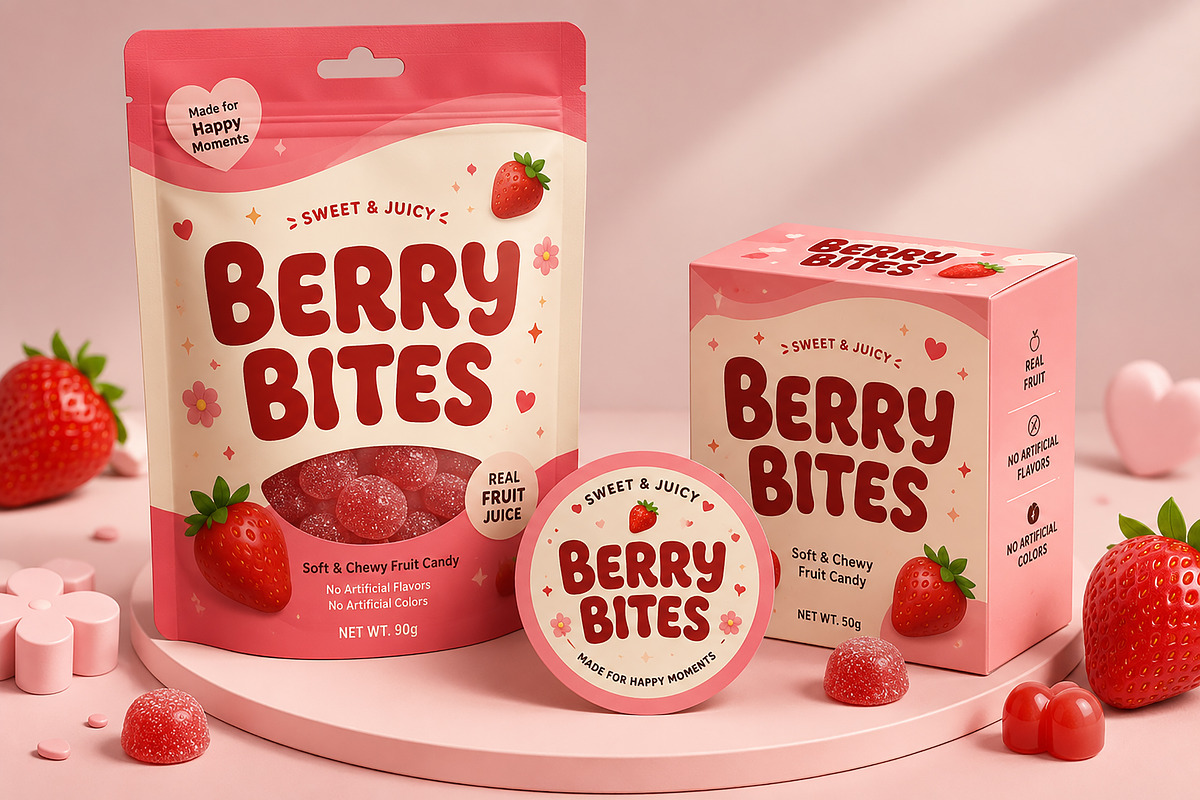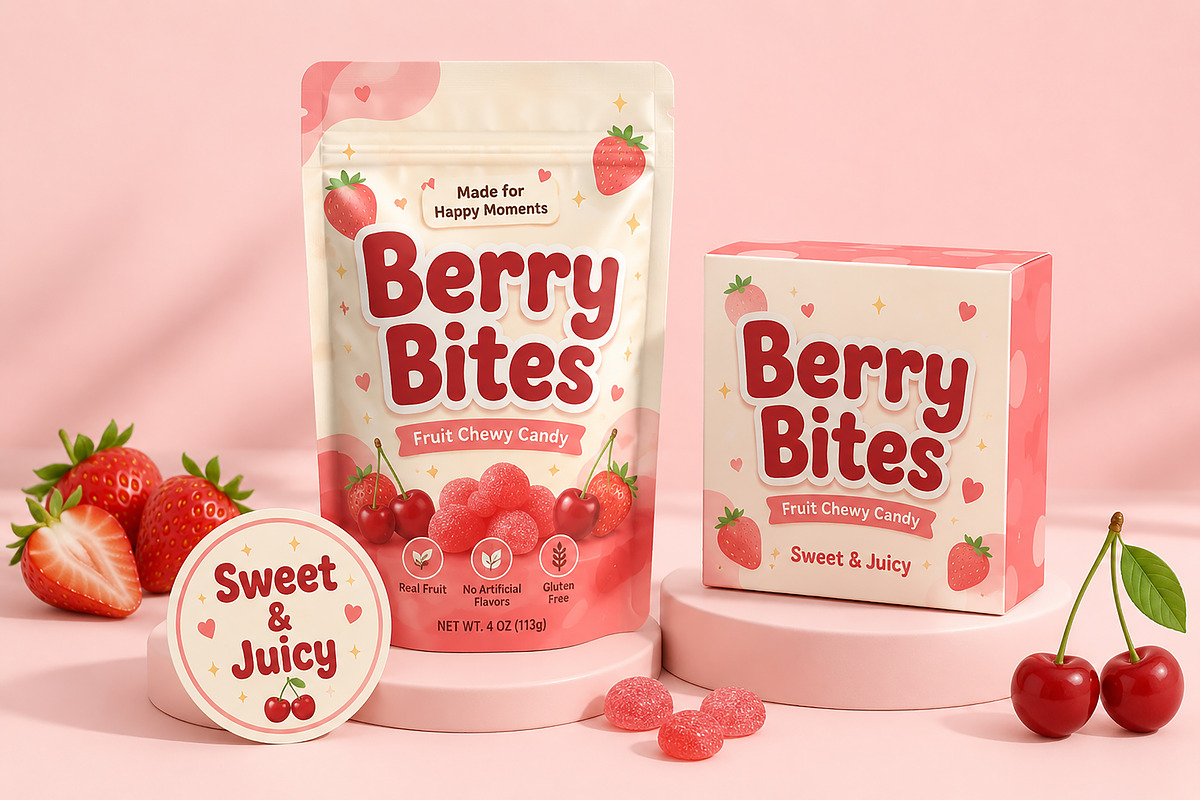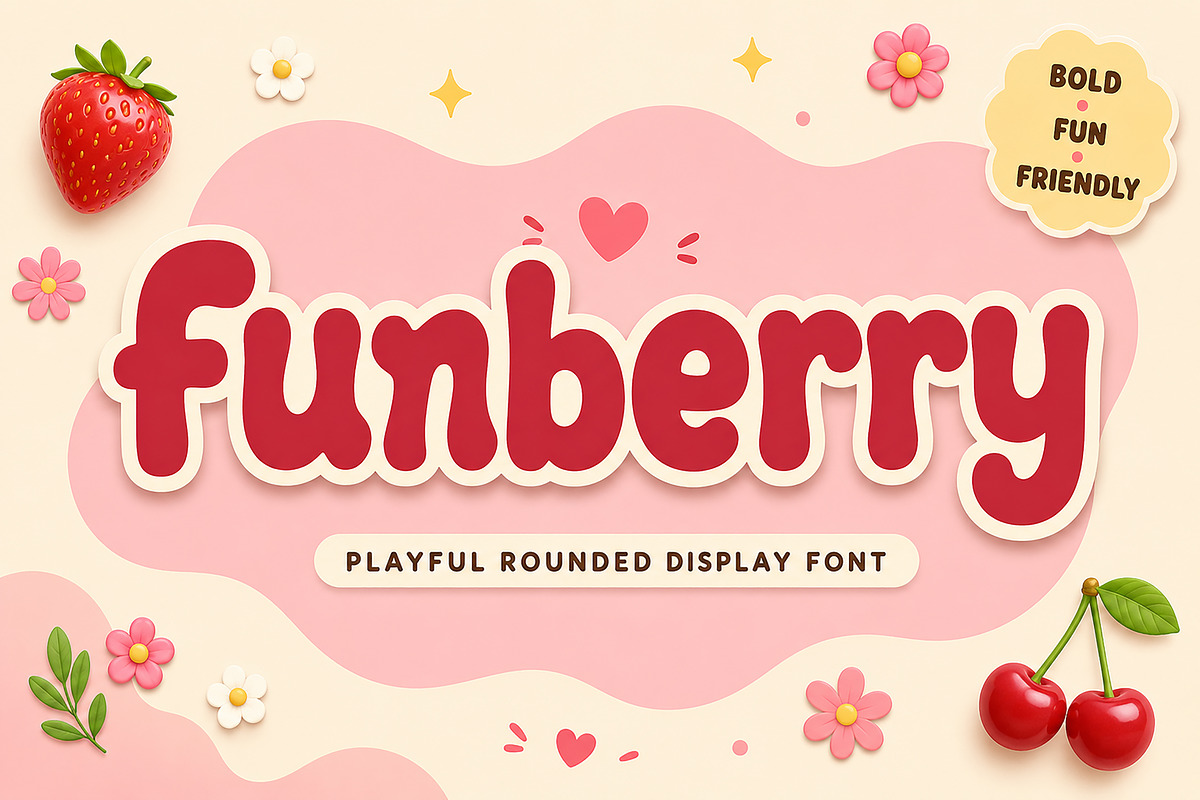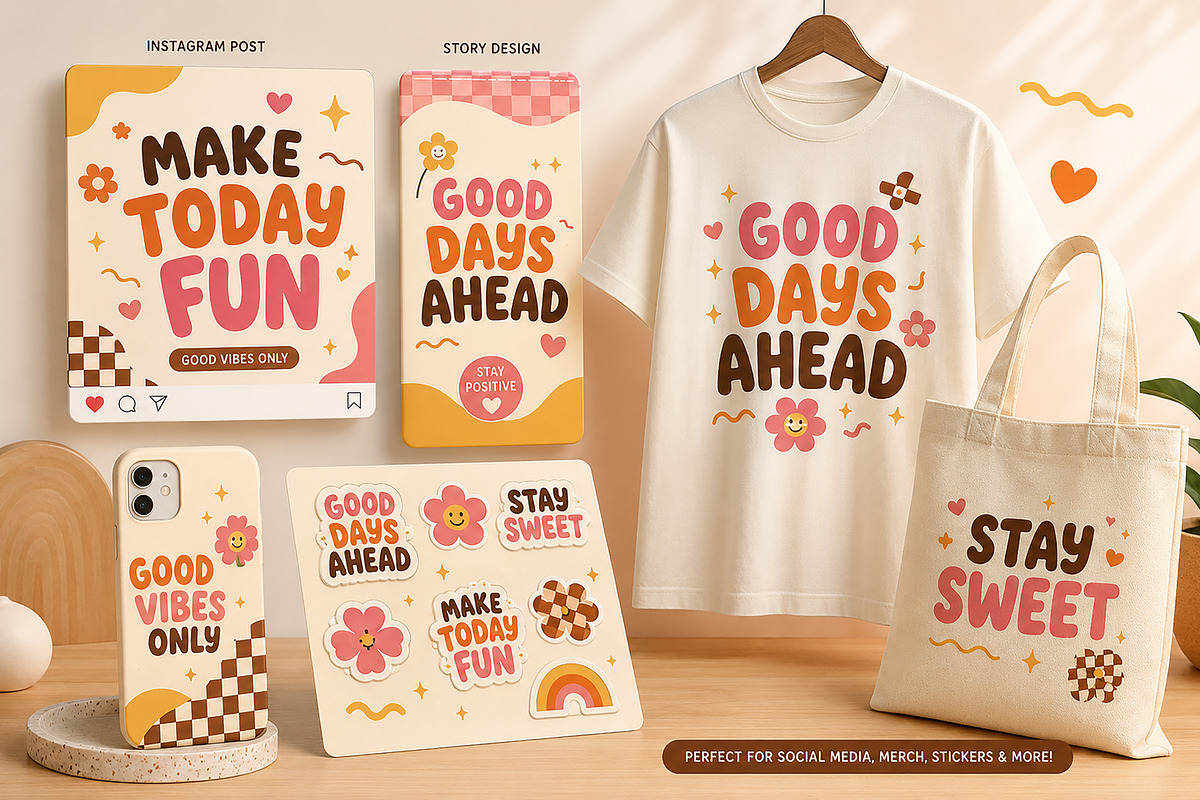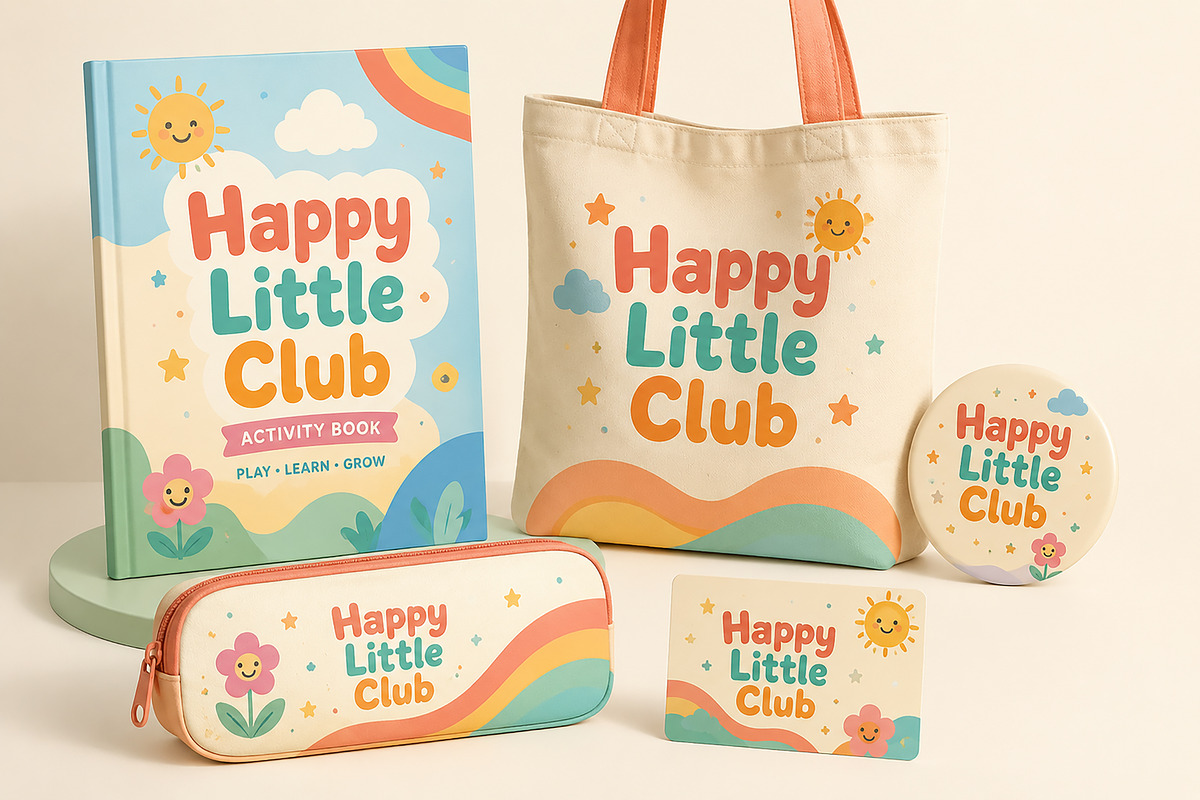
Funberry – Playful Display Font
Funberry – Playful Rounded Display Font
Product Description
Funberry is a playful, bold, and rounded display font designed to bring warmth, happiness, and personality to your creative projects. With its soft curves and friendly letterforms, Funberry instantly creates a cheerful and modern look that works perfectly for children's brands, food packaging, cafés, social media graphics, and fun merchandise.
Whether you're designing a colorful snack package, a cute logo, a trendy T-shirt, or eye-catching social media content, Funberry delivers a clean yet playful style that stands out effortlessly.
Its smooth, chunky shapes make every headline bold, approachable, and easy to read, giving your designs a premium handcrafted feel while maintaining excellent legibility.
Kids Branding
Candy & Snack Packaging
Bakery & Dessert Branding
Café Logos
Stickers
T-Shirt Designs
Tote Bags
Greeting Cards
Posters
Social Media Templates
YouTube Thumbnails
Party Invitations
Quotes
Labels
Creative Branding
Logos
Display Headlines
Bold Rounded Display Style
Friendly & Playful Look
Clean and Highly Readable
Perfect for Headlines
Great for Branding & Packaging
Easy to Use
Premium Quality Letter Design